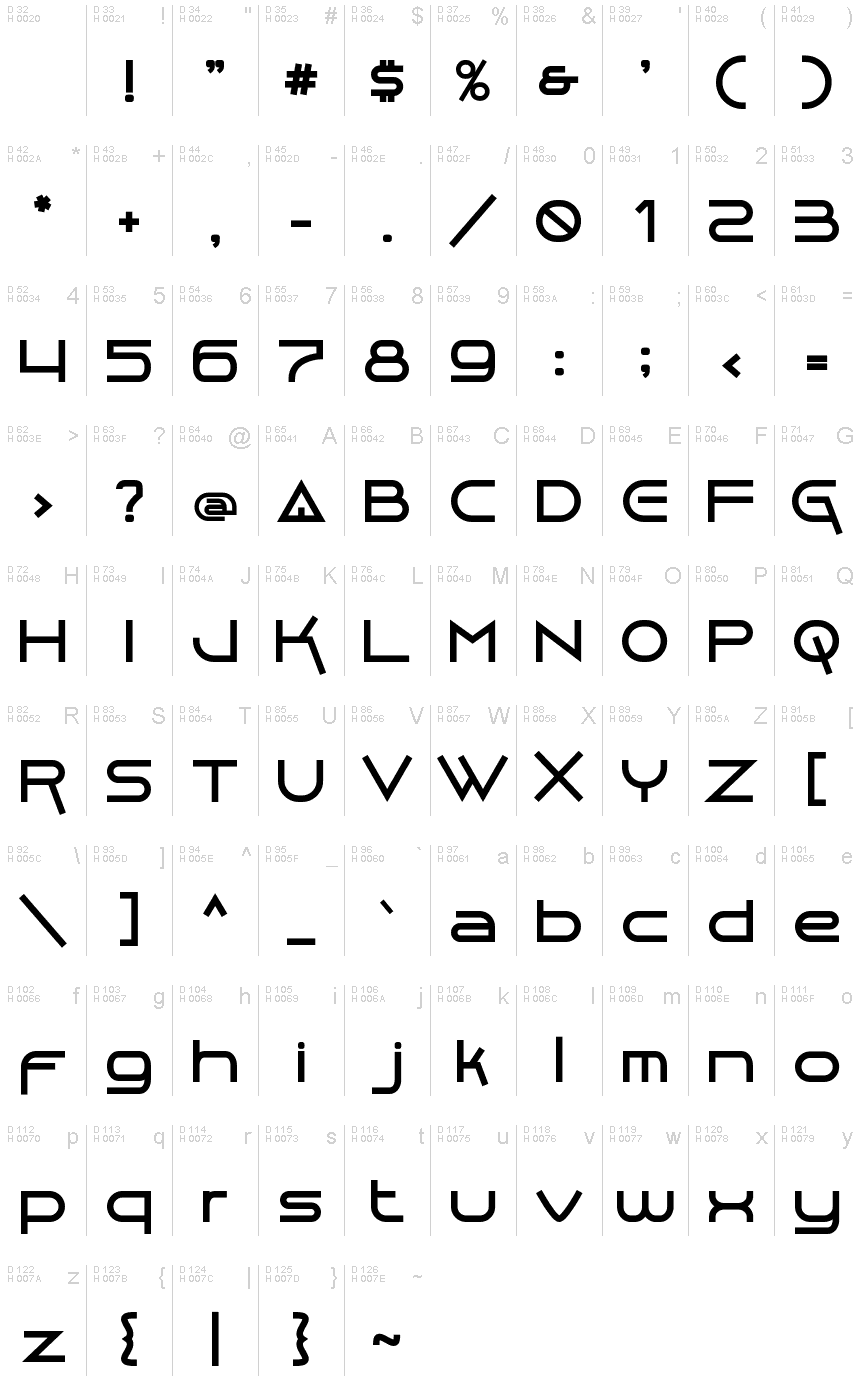
GYPSUM
GYPSUM, designed by Display Studio, is a captivating display font that adds a touch of futurism and modernity to any project. With its semi-light weight and expanded width, GYPSUM brings a sense of openness and versatility to your designs.
Perfect for branding projects seeking a cutting-edge aesthetic, GYPSUM excels in creating attention-grabbing logos, futuristic websites, sleek packaging designs, and dynamic posters. Its bold yet refined presence makes it suitable for fashion editorials, tech-related materials, sci-fi book covers, or anything that demands a contemporary twist.